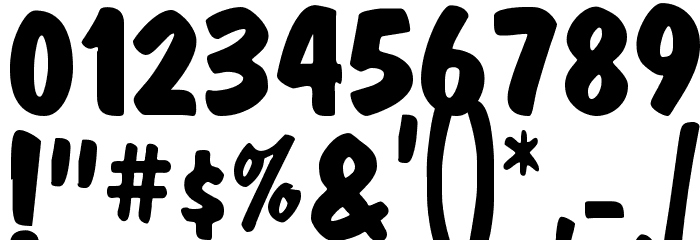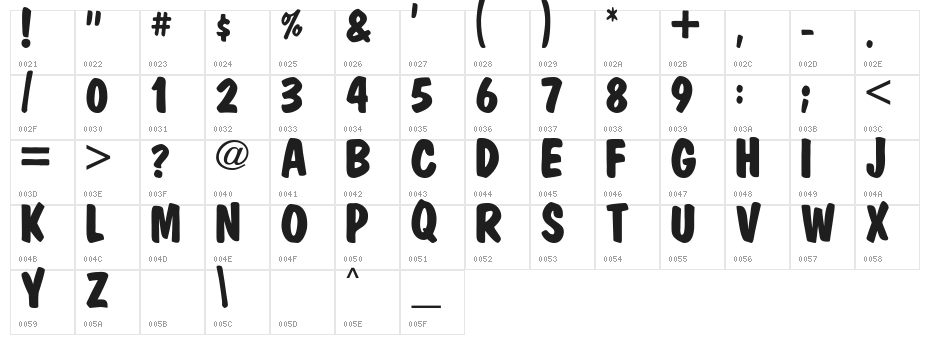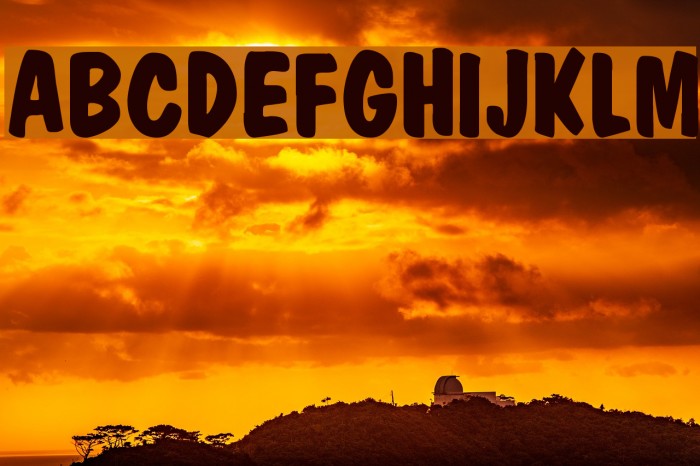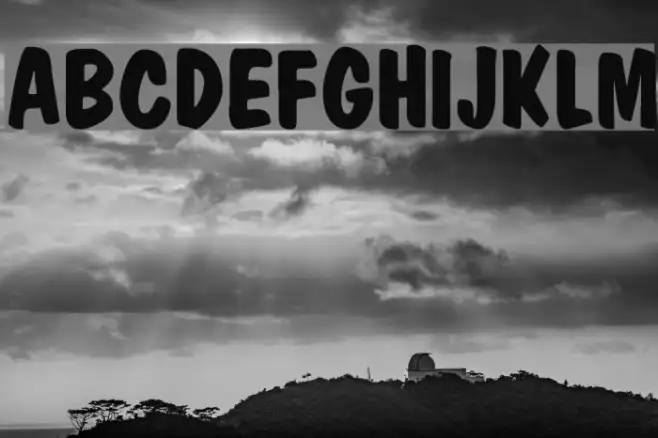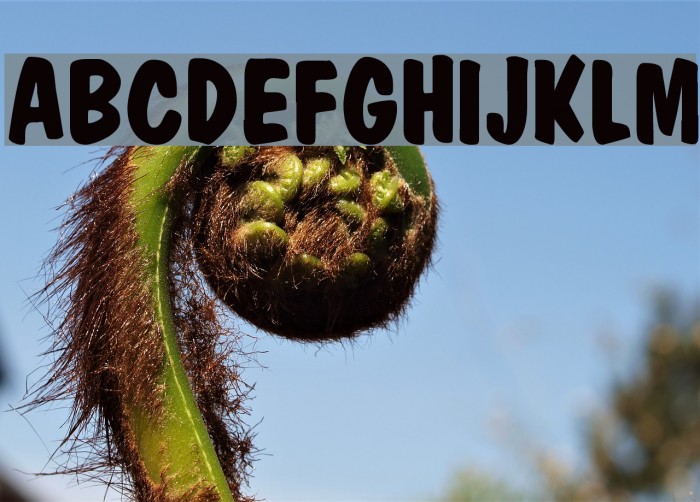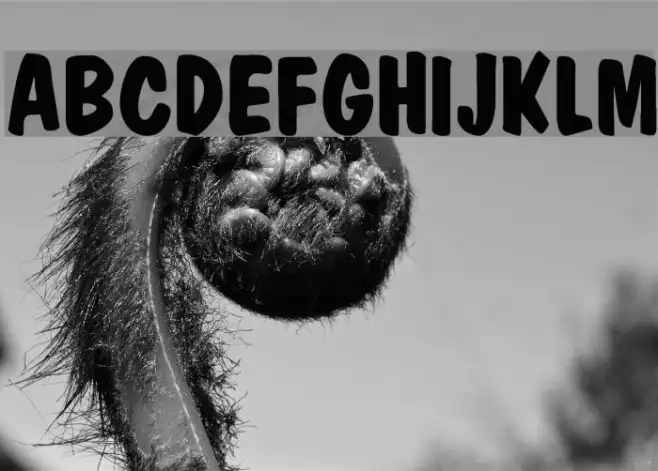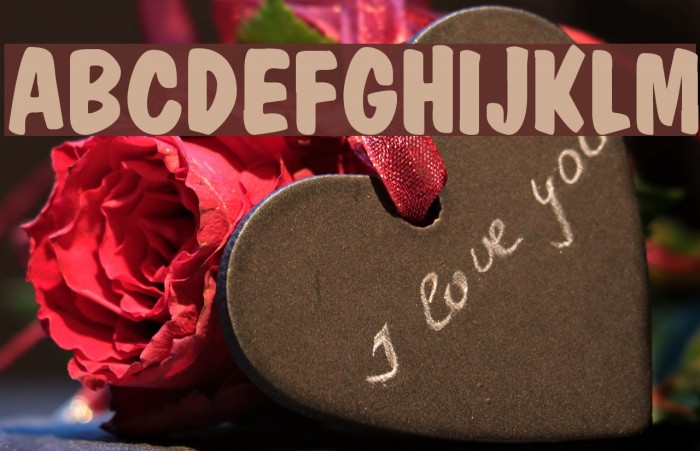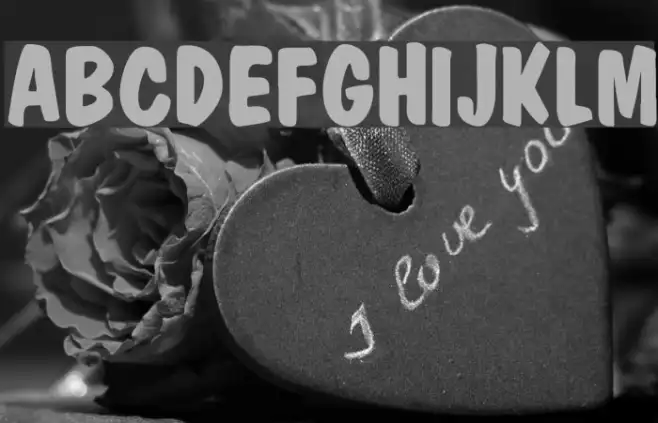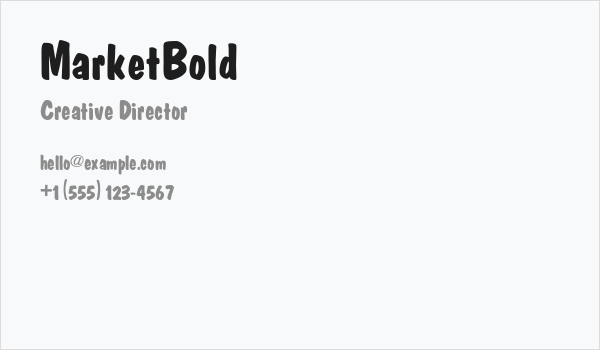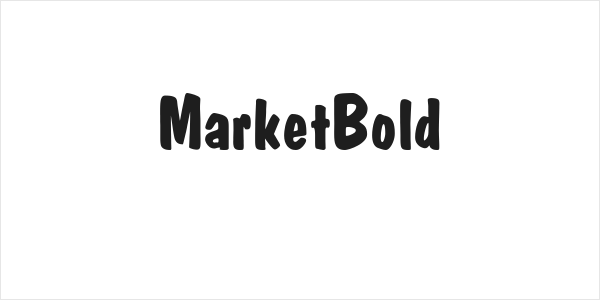
MarketBold Font
MarketBold Description
This font features bold, rounded characters with a playful and friendly appearance. The letters are thick and slightly irregular, giving them a hand-drawn feel that adds a touch of whimsy. The uppercase and lowercase letters maintain consistent weight, while the numerals and special characters are equally bold and expressive. The overall design is approachable and energetic, making it suitable for projects that require a fun and engaging typeface.
| Overall Style | Playful |
| Proposed Projects | Ideal for children's books, playful branding, posters, and social media graphics. |